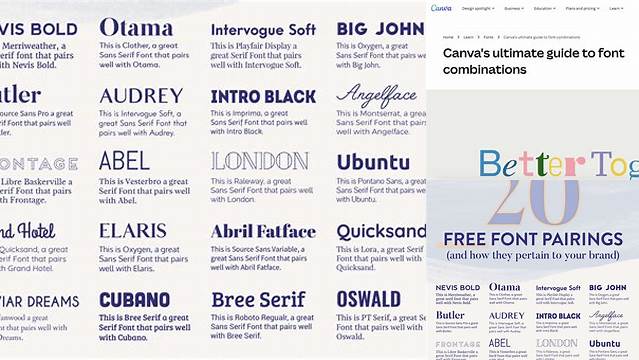
Font Pairing Generator: Your Ultimate Typography Guide
Hey there, design enthusiasts! Ever found yourself staring at a blank canvas, unsure of which fonts to pair together? Don't worry, we've all been there. Choosing the right font combinations is crucial for making your designs visually appealing and conveying your message effectively. A well-chosen font pairing can elevate your brand's identity, enhance readability, and create a lasting impression on your audience. But with thousands of fonts available, how do you find the perfect match? That's where a fonts combination generator comes in handy. This article dives deep into the world of typography, exploring how to use a font pairing generator to create stunning designs. We'll cover the basics of font selection, the importance of contrast and harmony, and how to avoid common font pairing mistakes. So, grab your favorite beverage, and let's embark on this typography adventure!
Understanding the Fundamentals of Font Pairing
Alright, before we get into the nitty-gritty of using a fonts combination generator, let's lay down some groundwork. Understanding the basics of font pairing is essential for creating effective designs. Think of fonts as the voices of your design. They each have their own personality, and when paired together, they can create a symphony of visual communication. There are a few key principles to keep in mind when choosing font combinations. First and foremost, readability is key. Your primary font should be easy to read, even in small sizes. Consider the context of your design. Is it a website, a poster, or a business card? The font you choose should be appropriate for the medium and the intended audience. Next, consider the mood or tone you want to convey. Do you want to appear professional, playful, or sophisticated? Different fonts evoke different emotions, so choose fonts that align with your brand's personality. Think about the use of serif and sans-serif fonts. Serif fonts have small strokes, called serifs, at the end of each letter, and they often feel more traditional or elegant. On the other hand, sans-serif fonts don't have serifs, and they tend to feel more modern and clean. A classic pairing is often a serif font for headings and a sans-serif font for body text. This combination creates visual interest while ensuring readability. Also, contrast is your friend. Don't be afraid to experiment with different font weights, sizes, and styles. A strong contrast between your fonts will make your design more dynamic and eye-catching. Avoid pairing fonts that are too similar, as they can be confusing and difficult to read. Instead, look for fonts that complement each other and create a balanced visual experience. Remember, the goal is to create a harmonious design that effectively communicates your message. Keep these principles in mind as you explore the wonderful world of font pairings.
Leveraging a Fonts Combination Generator for Optimal Results
Now that we've covered the fundamentals, let's dive into how you can use a fonts combination generator to your advantage. These tools are invaluable for designers of all levels, as they offer a wide range of pre-selected font pairings, saving you time and effort. Most font pairing generators are incredibly easy to use. You'll typically start by entering the type of design you're working on, such as a website, logo, or print design. Some generators even allow you to specify your brand's style or the tone you're trying to achieve. Based on your input, the generator will suggest a variety of font combinations. The key to using a font pairing generator effectively is to experiment and explore. Don't be afraid to try different combinations and see what works best for your design. Most generators will provide you with a preview of how the fonts will look together, so you can visualize the final result. Take advantage of this feature to assess readability, visual appeal, and overall harmony. When exploring different font combinations, pay attention to the balance of the fonts. Consider the use of font weights and sizes to create contrast and visual interest. Also, consider the emotional impact of each font pairing. Does it convey the right message? Does it align with your brand's personality? Don't be afraid to step away from the suggestions and explore your own style. Font pairing generators are a great starting point, but you don't have to feel limited by them. Once you find a font pairing you like, you can often customize the fonts' colors, sizes, and weights to further refine the look. Remember, the goal is to find a combination that perfectly represents your vision and effectively communicates your message. Don't just blindly choose a font pairing; consider the context, the audience, and your brand's overall aesthetic. This way, you can make a design that truly shines.
Avoiding Common Font Pairing Mistakes
Alright, let's talk about some common mistakes to avoid when choosing font pairings. One of the biggest errors is using fonts that are too similar. This can create a visually confusing result, making it difficult for your audience to read and process the information. The fonts may clash and the viewer may not understand the intent behind the design. The goal is for the audience to focus on the message, not the design. Contrast is crucial. If your fonts are too similar, the text may blend together, diminishing the visual impact of your design. Make sure that the fonts complement each other and have a clear visual distinction. Another mistake is using too many fonts in your design. While it can be tempting to experiment with different fonts, using too many can create a cluttered and unprofessional look. It can be overwhelming for the viewer and it can diminish the design's overall impact. Instead, focus on a few carefully selected fonts that work well together. A good rule of thumb is to stick to two or three fonts at most. When choosing font combinations, also be mindful of the readability of the fonts, especially for body text. Avoid choosing fonts that are difficult to read at small sizes. If your body text is hard to read, your audience won't be able to engage with your content. When you are choosing your fonts, test them out in various situations to see how they perform. Finally, don't neglect the importance of kerning and leading. Kerning is the space between individual letters, while leading is the space between lines of text. Adjusting these settings can significantly impact readability and visual appeal. Always double-check your font pairings for readability, balance, and overall harmony. Before finalizing your design, take some time to look at the font pairings in different contexts. Test them on various backgrounds, devices, and sizes to ensure that they look great everywhere. By avoiding these common mistakes, you can create beautiful, effective designs that are visually appealing and easy to read.
Tips for Creating Stunning Font Pairings
Let's dive into some pro tips to help you create stunning font pairings that will make your designs stand out. Start by defining your brand's personality and the message you want to convey. This will help you choose fonts that align with your brand's identity and evoke the desired emotions. Once you have a clear vision, explore different font categories. There are several font types to consider, like serif, sans-serif, script, and display fonts. Serif fonts often feel more traditional and elegant, while sans-serif fonts tend to be modern and clean. Script fonts can add a touch of personality and creativity, while display fonts can be used for titles and headlines. Combine different font categories to create visual interest and contrast. Once you've identified the fonts that align with your brand's personality, you can begin to experiment with different combinations. Think about the relationship between the fonts. Do they complement each other or are they in stark contrast? Consider the use of different font weights, sizes, and styles. A bold heading font paired with a lighter body text font creates a dynamic visual effect. A strong contrast between the fonts will make your design more eye-catching and memorable. As you experiment, pay attention to the overall harmony and balance of the design. Ensure that the fonts work well together and create a cohesive visual experience. Don't be afraid to play with different font sizes and weights to create the right balance. Also, consider the context of your design. The font combinations that work best for a website may not be ideal for a print design. The goal is to create a harmonious design that's both visually appealing and easy to read. Practice and experiment with different combinations. This way, you can build a strong understanding of typography. Don't be afraid to seek inspiration from other designs and resources. There are plenty of websites and online communities dedicated to typography and design. Finally, take your time and have fun with it! Typography is a creative art form, and there is no right or wrong answer. The most important thing is to choose fonts that you love and that work effectively for your design.
Tools and Resources to Help You Generate Font Pairings
Alright, let's explore some tools and resources that can help you generate the perfect font pairings. There are many font pairing generators available online, each offering a unique set of features and functionalities. One popular option is Google Fonts, which offers a vast library of free fonts and a handy font pairing tool. You can easily search for fonts and view suggested pairings, making it an excellent starting point. Another great resource is Adobe Fonts, which is integrated with Adobe Creative Cloud. This tool provides a wide range of high-quality fonts and recommended pairings, along with advanced features like font syncing and licensing. Typewolf is a curated website that showcases real-world examples of font pairings used in various designs. This is an excellent source of inspiration, as you can see how different fonts work together in practical applications. FontPair is another useful tool that allows you to search for font pairings based on your design needs. You can filter results by font styles, categories, and other criteria. When choosing a font pairing generator, consider factors like the size of its font library, the ease of use, and the types of features it offers. Some generators offer advanced features like font previewing and customization options. Take the time to explore a few different tools to see which ones best suit your design needs. In addition to font pairing generators, there are also many other resources available to help you with typography. Websites like Behance and Dribbble offer inspiration and examples of how different fonts are used in a variety of design projects. Many design blogs and articles provide tips and advice on typography. Consider using design software like Adobe Photoshop, Illustrator, or Canva, which offer extensive font libraries and tools for creating and manipulating fonts. Don't be afraid to experiment with different tools and resources to find what works best for you. By using these resources, you'll be well on your way to creating beautiful and effective designs. The most important thing is to have fun and to embrace the creative process.
Conclusion: Crafting the Perfect Font Pairing for Your Designs
So, there you have it, guys! You now have the knowledge to choose amazing font combinations. Choosing the right font pairings is essential for creating visually appealing and effective designs. We've covered the fundamentals of font pairing, the importance of contrast and harmony, and how to avoid common mistakes. We've also explored a variety of tools and resources that can help you generate the perfect font pairings. Remember to define your brand's personality, experiment with different font combinations, and pay attention to the readability and visual impact of your designs. By following these tips, you can create beautiful and effective designs that capture the attention of your audience. Never stop exploring and experimenting. Typography is a creative art form, and there is no right or wrong answer. The most important thing is to choose fonts that you love and that work effectively for your design. Embrace the creative process, and have fun! With a little practice and exploration, you'll be well on your way to creating stunning designs that leave a lasting impression. Happy designing, folks!